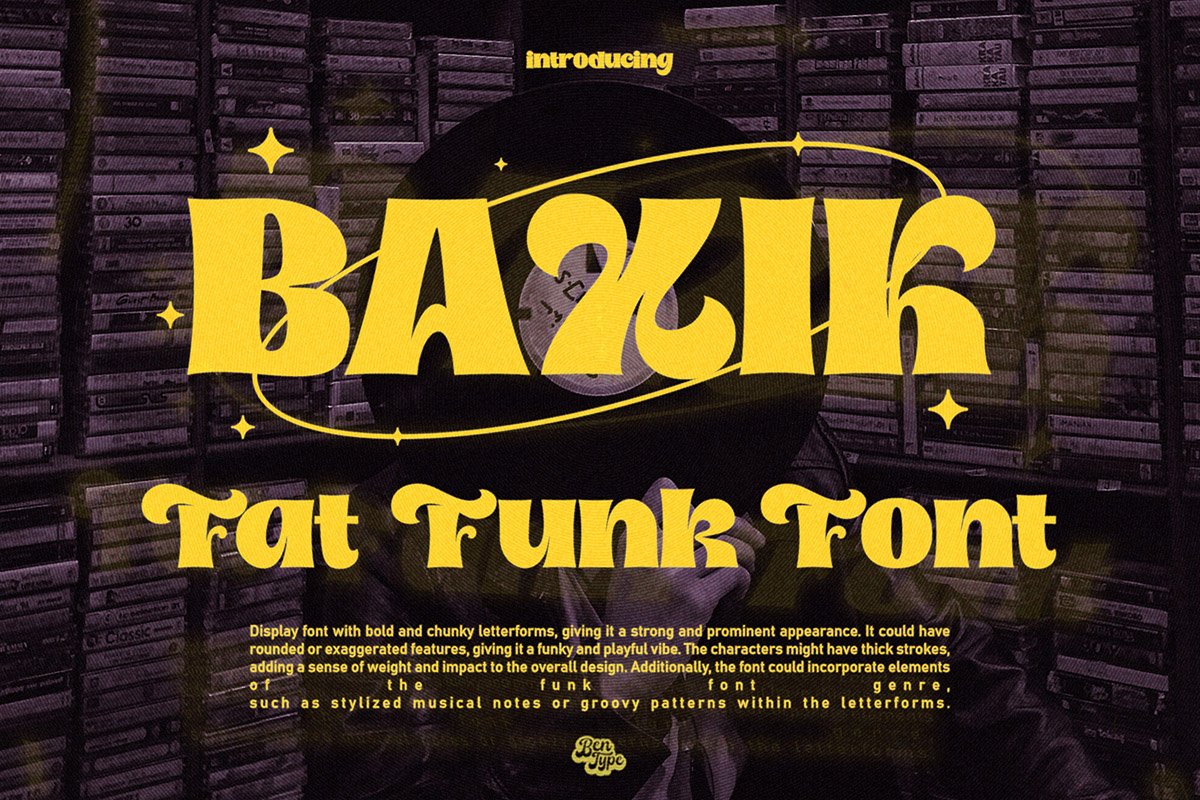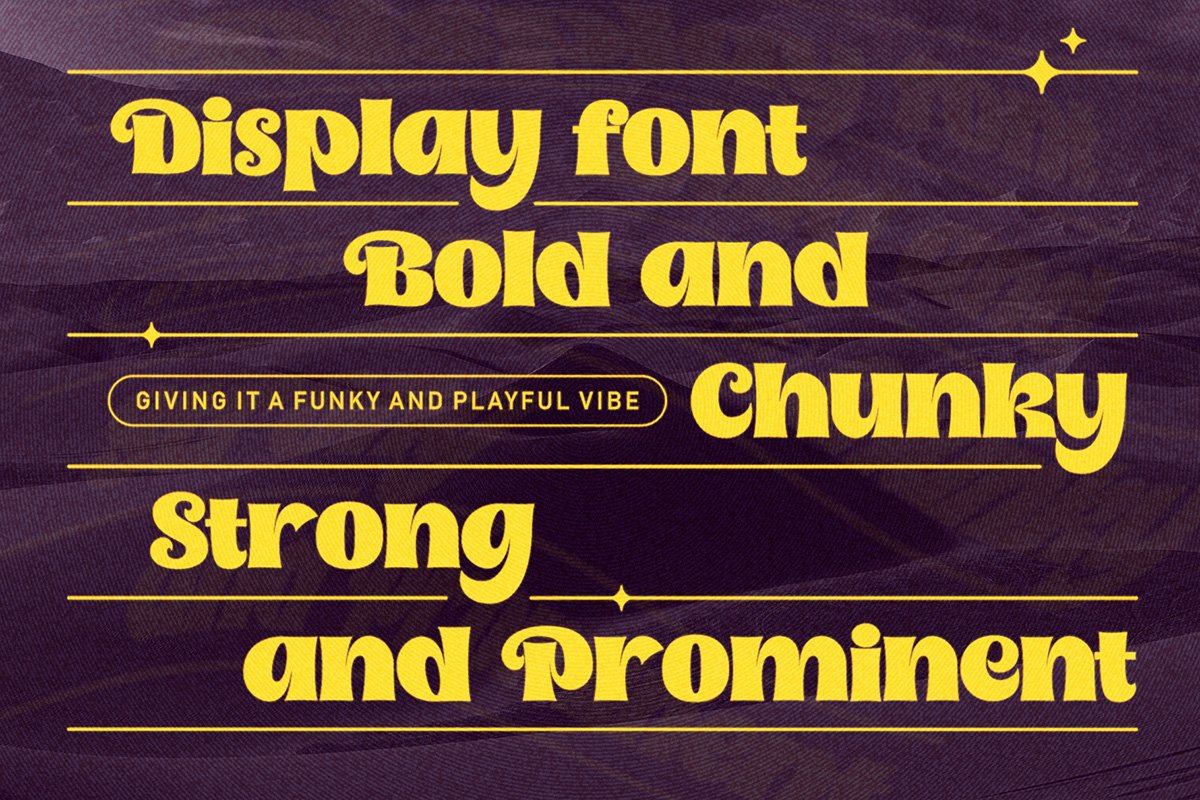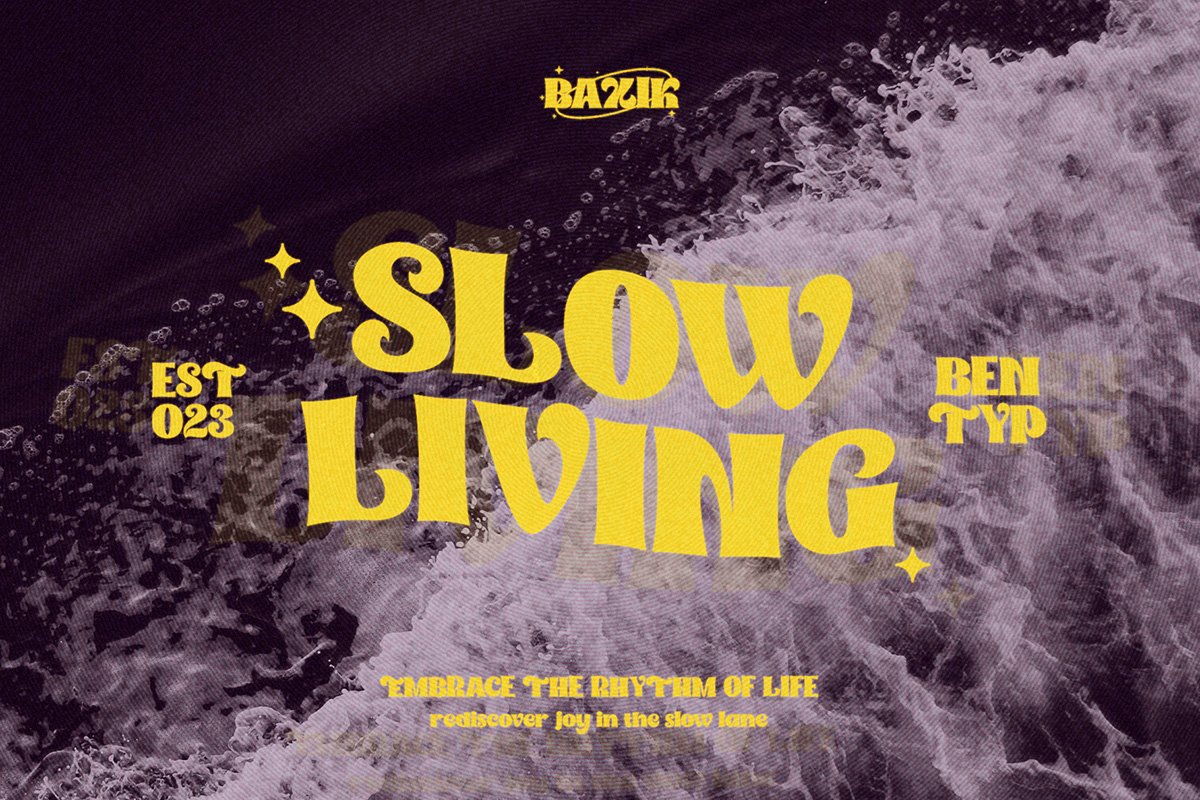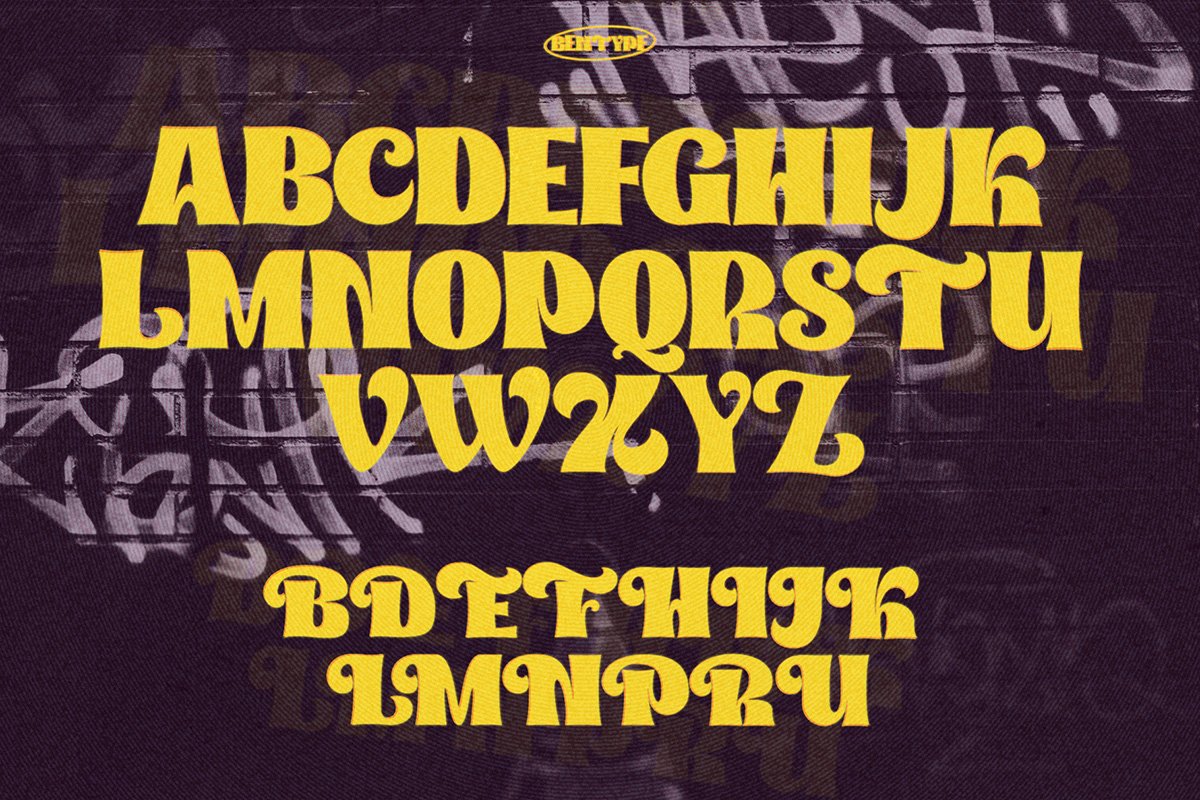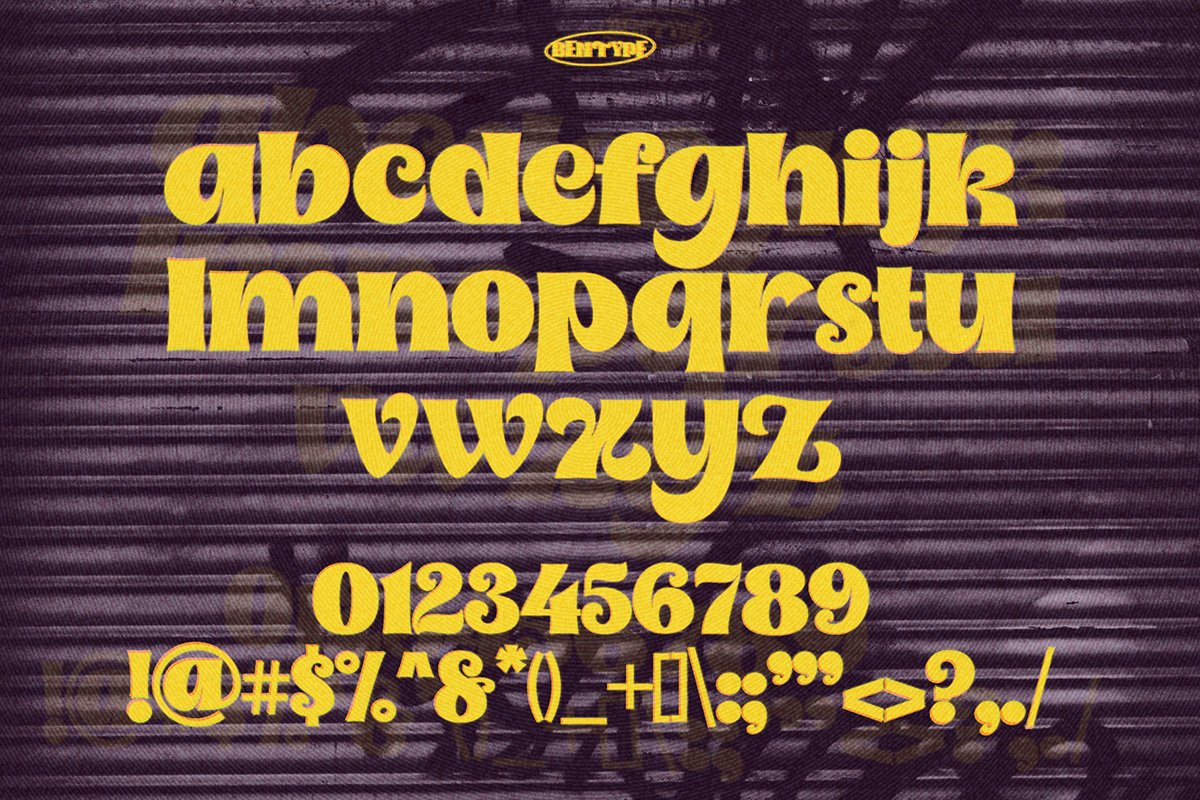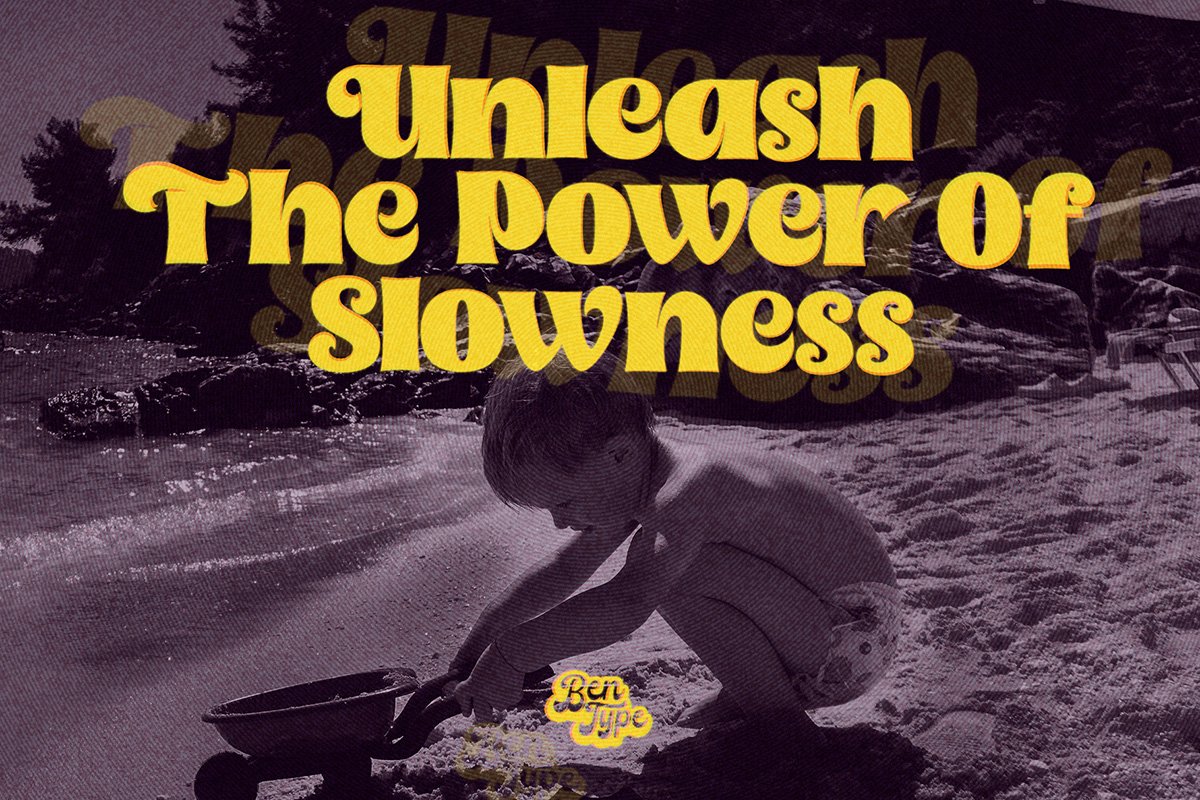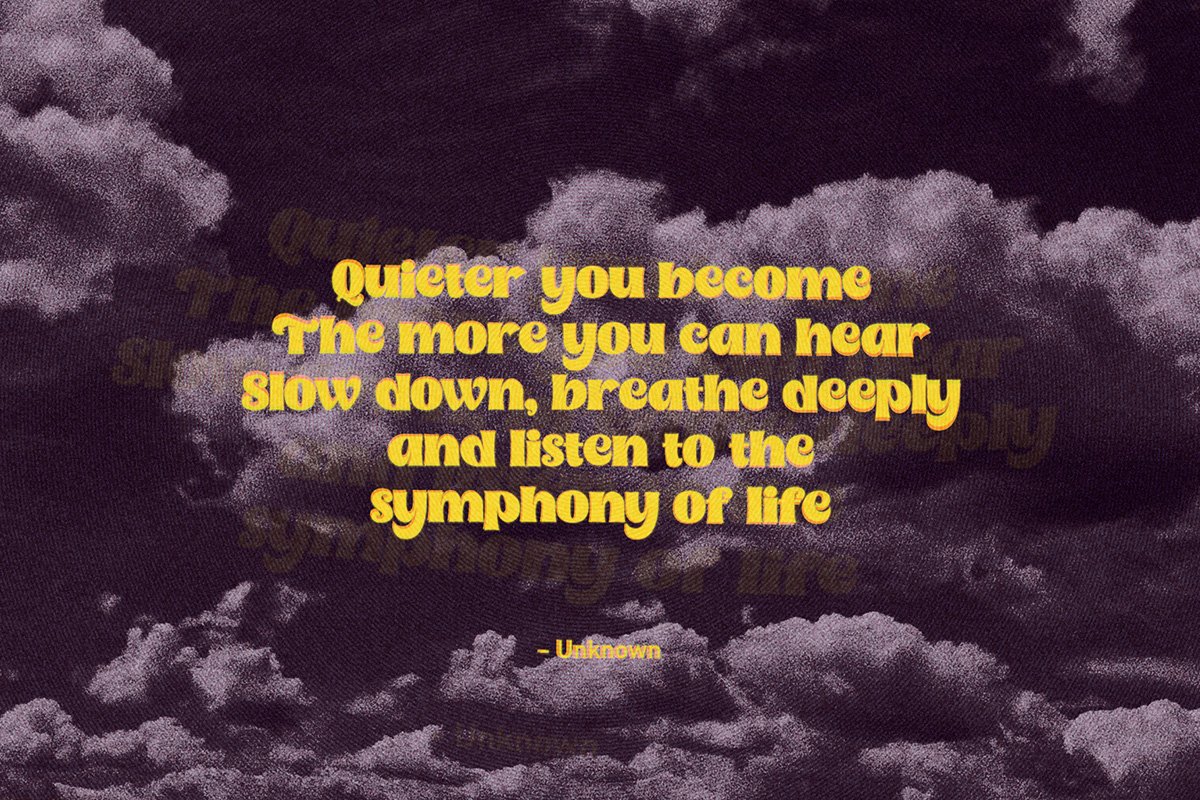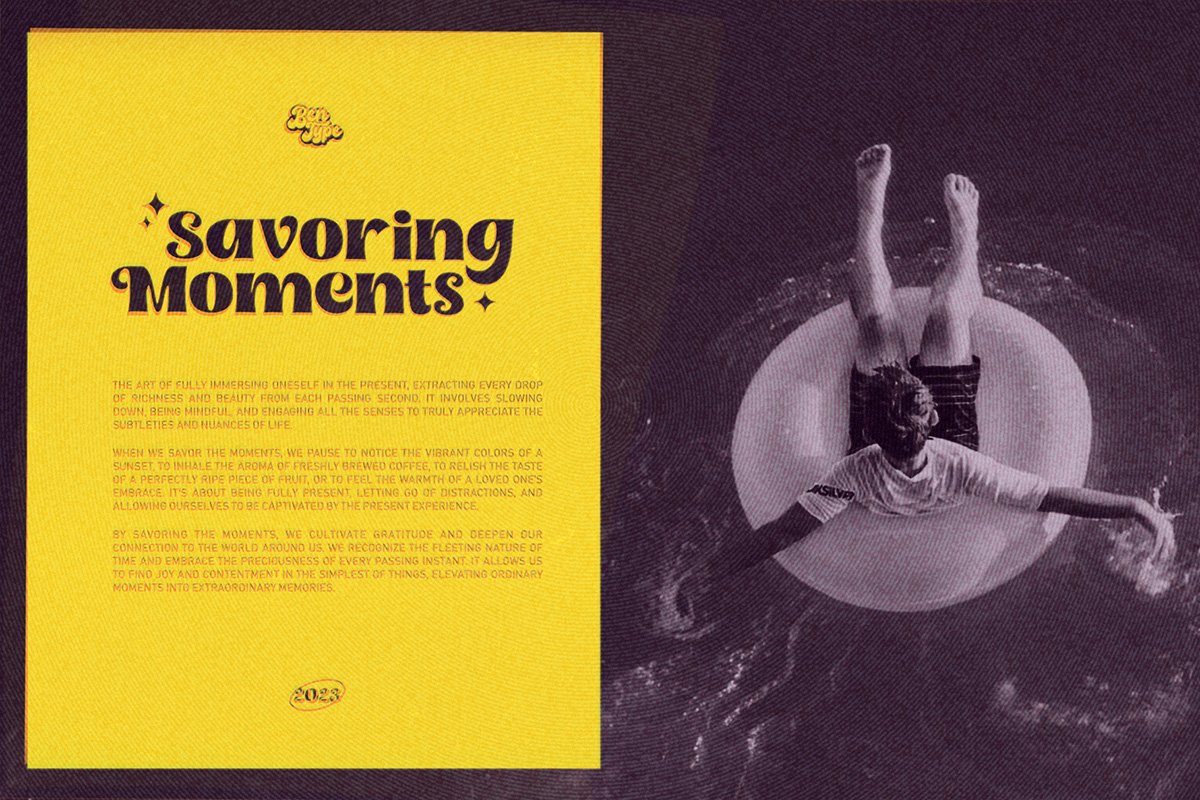
Baxik – Fat Funk Font is here! It comes with bold and chunky letterforms, giving it a strong and prominent appearance. It could have rounded or exaggerated features, giving it a funky and playful vibe. The characters might have thick strokes, adding a sense of weight and impact to the overall design. Additionally, the font could incorporate elements of the funk music genre, such as stylized musical notes or groovy patterns within the letterforms.
BAXIK